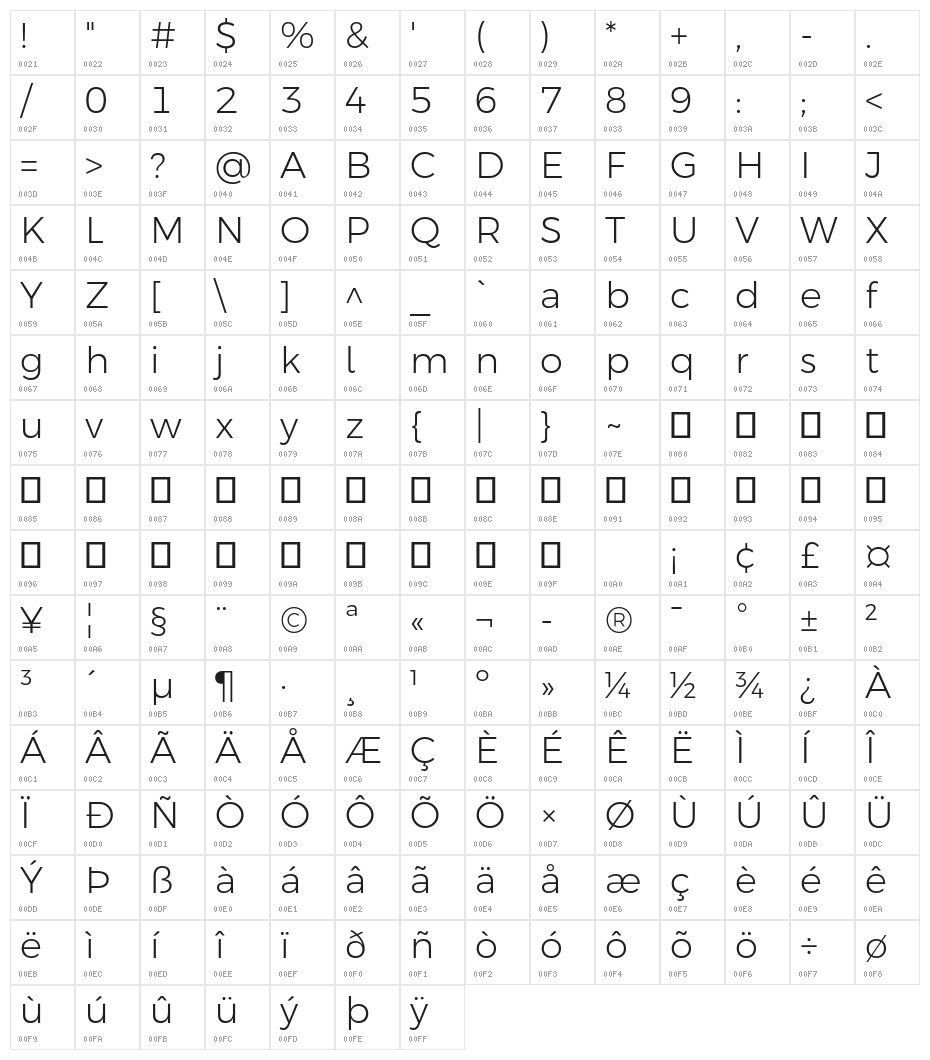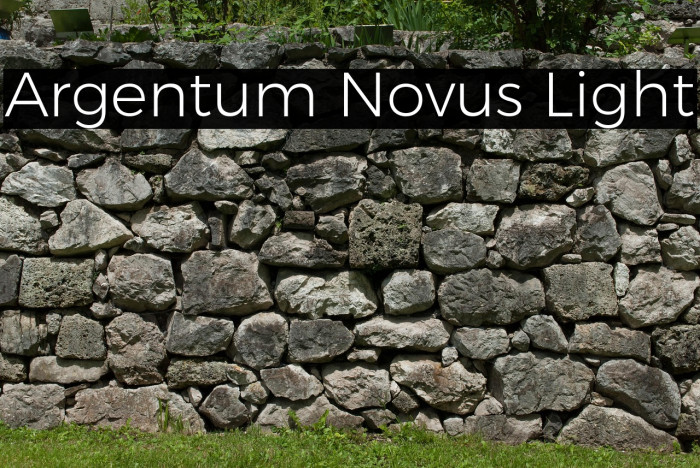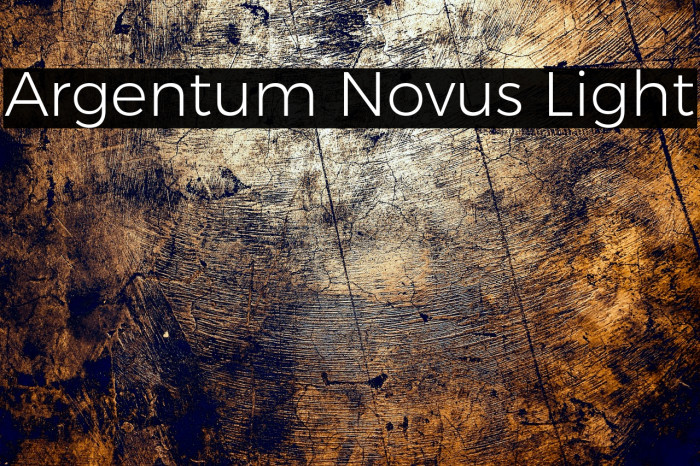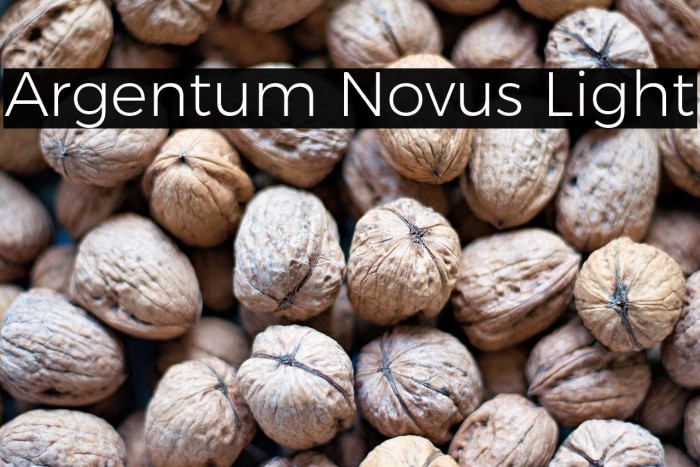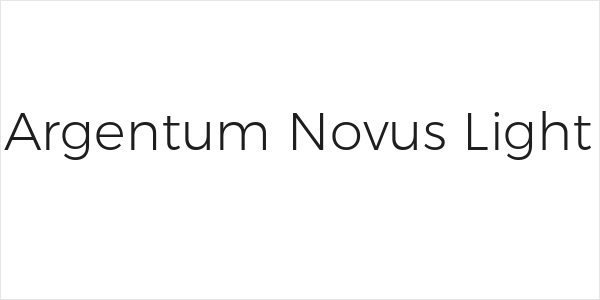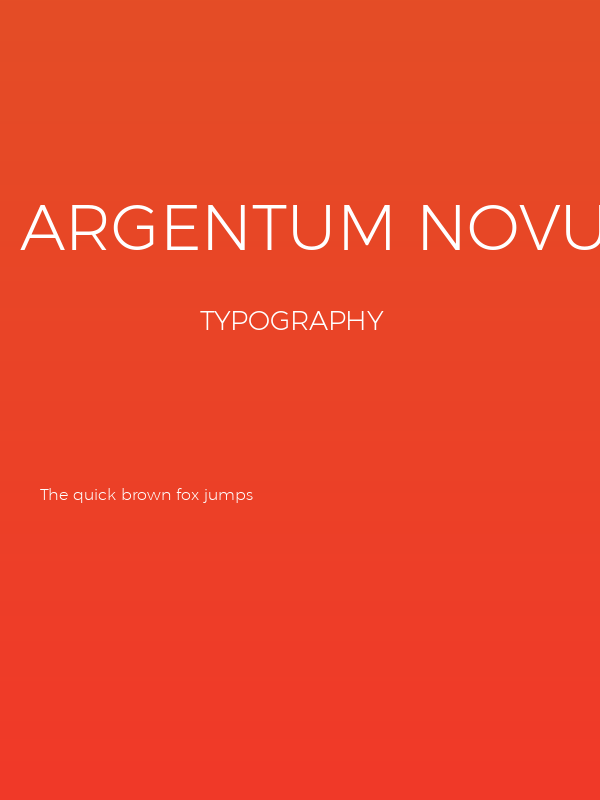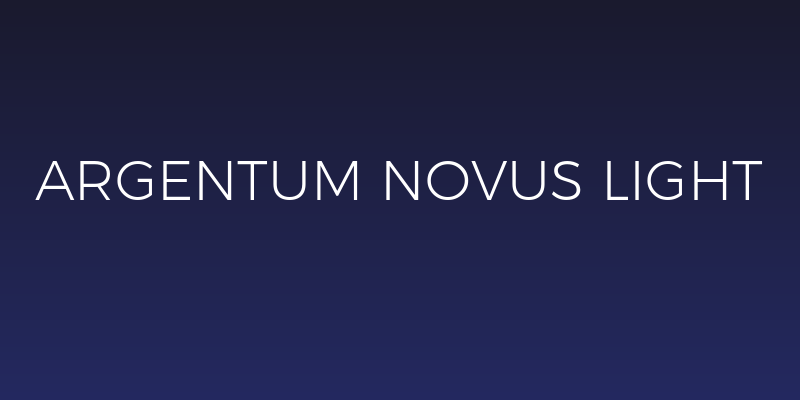
Argentum Novus Light Font
Argentum Novus Light Description
This font exhibits a clean and modern aesthetic with a minimalist approach. The characters are evenly spaced, contributing to a balanced and harmonious appearance. The strokes are consistent in thickness, providing a uniform look across all characters. Its simplicity and clarity make it highly legible, suitable for a variety of design applications. The uppercase and lowercase letters maintain a cohesive style, while the numerals and special characters are designed to complement the overall look. This font's versatility makes it ideal for both digital and print media.
| Proposed Projects | Ideal for branding, web design, editorial layouts, and corporate materials. |